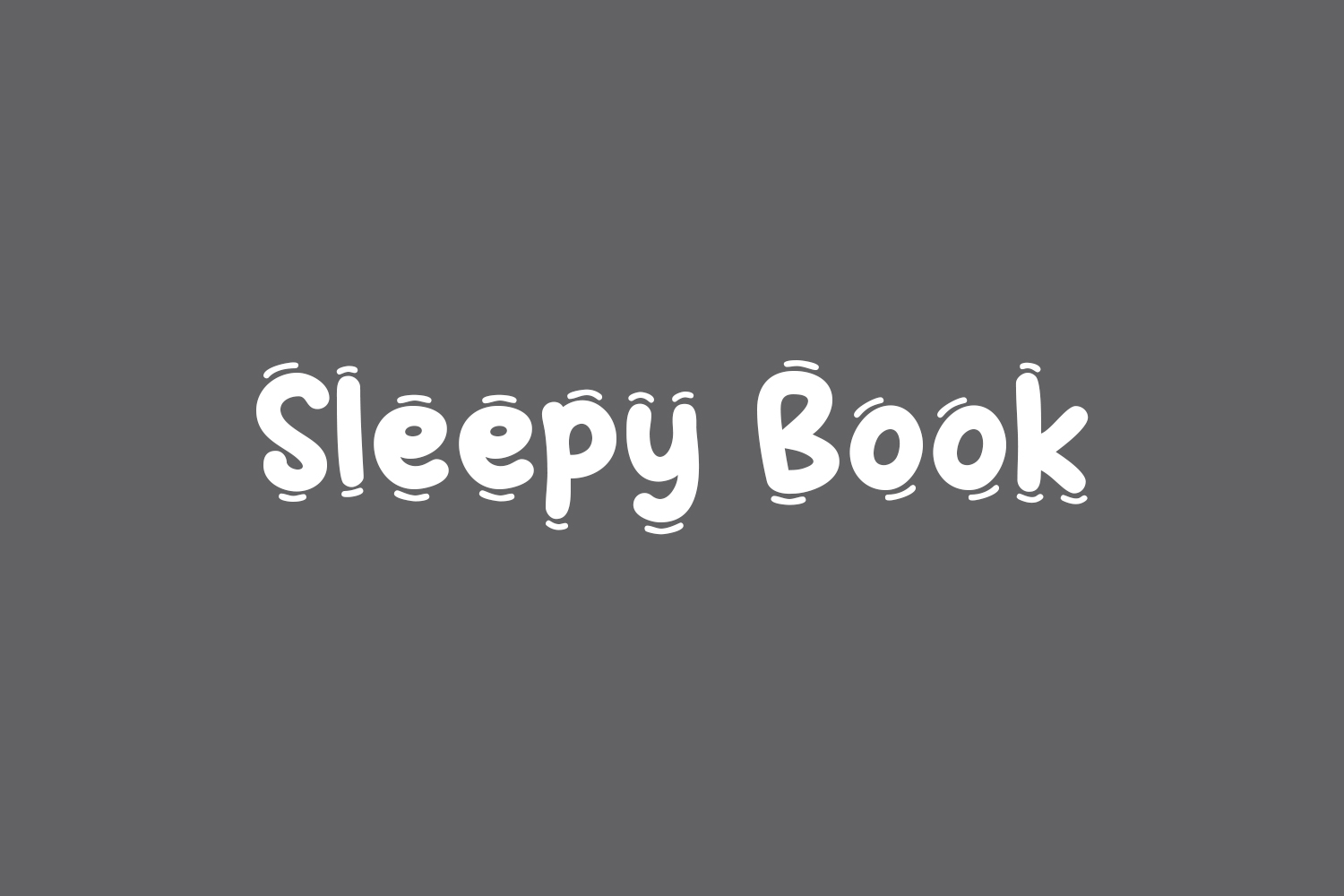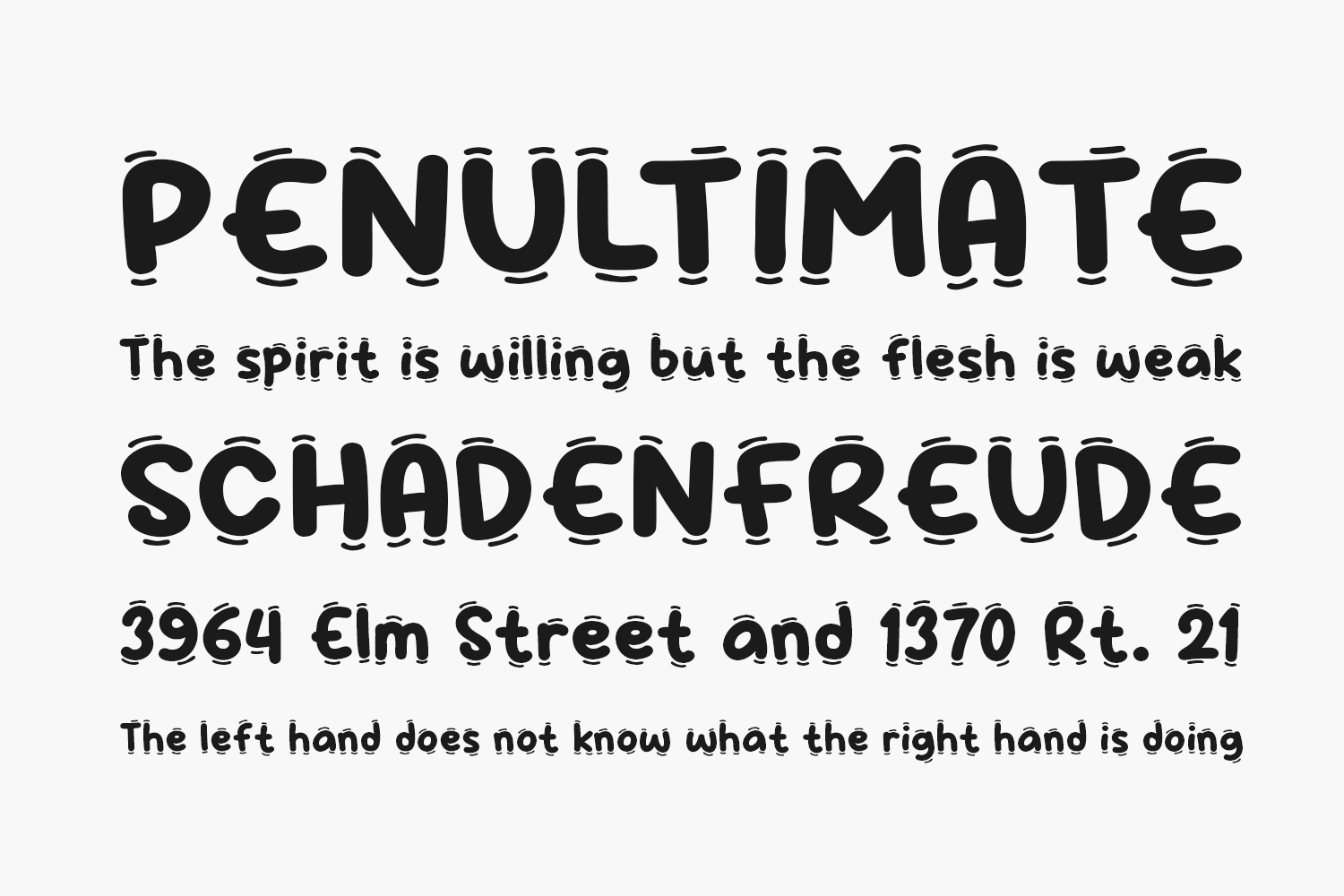
Sleepy Book Free Font is a modern, clean, stylish, playful and luxurious display font that is perfect for all your graphic design projects like posters, logos, magazines, book covers, banners and more! Get this cute display font, and use it to create beautiful and extraordinary designs. Sleepy Book Free Font is free for personal or commercial use.